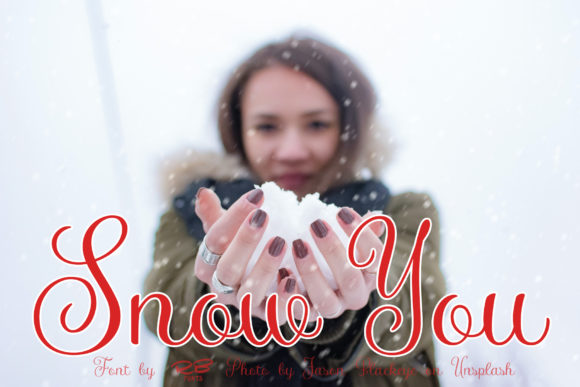
Snow You Font
Introducing Snow You Font, the enchanting handwritten font that will bring an instant smile to your designs. Its playful and charming characters dance across the page, evoking feelings of joy, warmth, and happiness. Crafted with meticulous care and attention to detail, Snow You is a visual masterpiece that combines beauty and functionality in perfect harmony.
With its elegant curves and smooth lines, Snow You Font exudes a sense of playfulness and delight. Each letter is carefully designed to flow seamlessly into the next, creating an effortless and natural rhythm that captures the essence of handwritten typography. The result is a font that feels both personal and inviting, as if each word were lovingly penned by hand.
Step into a world of endless creative possibilities with Snow You Font. Its versatility extends far beyond birthday celebrations, making it an ideal choice for a wide range of projects. Add a touch of whimsy to your greeting cards, invitations, and social media posts. Create eye-catching logos, branding materials, and website designs that radiate warmth and charm. Snow You Font is the perfect companion for projects that call for a cheerful and lighthearted touch.
Unleash your imagination and immerse yourself in a world of creative expression with Snow You Font. Let its graceful strokes guide your designs towards new heights of beauty and engagement. Experience the transformative power of a font that truly captures the essence of happiness.